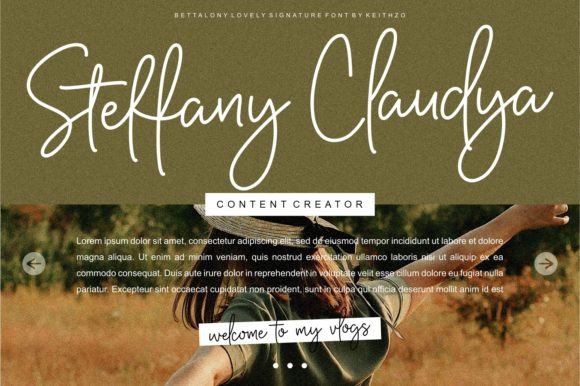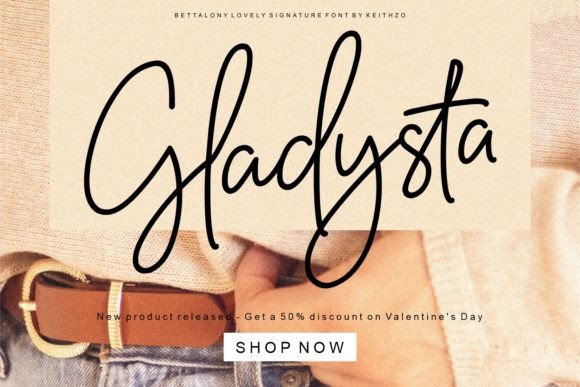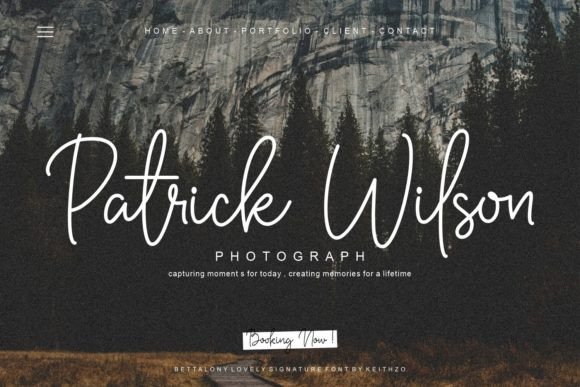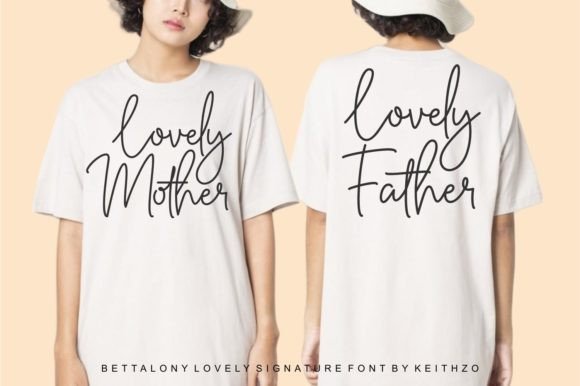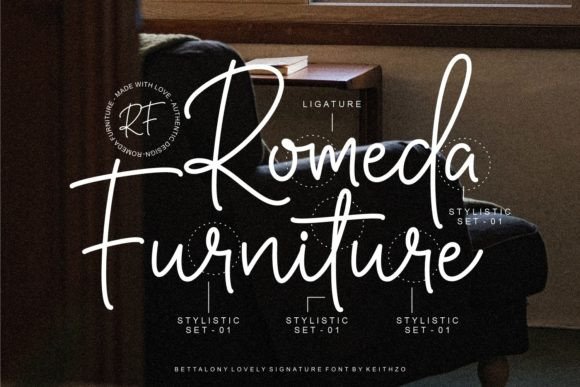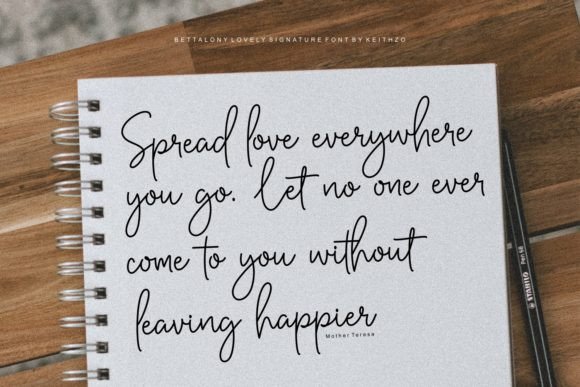
The Elegance of Bettalony Font: Elevate Your Designs with Sophistication
I’ll never forget the time I was working on a wedding invitation project, and my client asked for a font that exuded elegance and sophistication. I scoured the internet, tried out countless fonts, but nothing seemed to fit the bill. That was until I stumbled upon Bettalony Font. Its fluid lines and delicate curves instantly caught my attention, and I knew I had found the perfect fit. In this article, I’ll share with you why Bettalony Font is a game-changer for designers, crafters, and creative hobbyists alike.
A Personal Review: What I Love About Bettalony Font
Here’s what I love about Bettalony Font:
- ✨ Elegant and sophisticated design that’s perfect for wedding invitations, branding, and social media graphics
- ✅ PUA encoded, making it easy to access all glyphs and swashes
- 💫 Fluid lines and delicate curves that add a touch of luxury to any design
- 🎨 Highly versatile and can be used for a variety of projects, from digital to print
While Bettalony Font is an amazing font, there are a few small quirks to be aware of:
- ⚠️ Some users may find the font a bit too delicate for certain design applications
- 🤔 May require some experimentation to get the hang of using OpenType features and glyphs
The Story Behind Bettalony Font
Bettalony Font was designed by a talented type designer who’s passionate about creating beautiful, handwritten fonts. The font is inspired by the elegance of traditional calligraphy and the fluidity of modern handwriting. The designer aimed to create a font that’s both sophisticated and approachable, making it perfect for a wide range of design applications.
| Font Name | Bettalony Font |
| Author | Keithzo (7NTypes) |
Q: What is PUA encoding, and how does it benefit designers?
A: PUA (Private Use Area) encoding is a standard for encoding fonts that allows designers to access a wide range of glyphs and swashes. In the case of Bettalony Font, PUA encoding makes it easy to access all the glyphs and swashes, giving designers more creative freedom.
Q: Is Bettalony Font suitable for digital and print design?
A: Yes, Bettalony Font is highly versatile and can be used for both digital and print design. Its elegant design and fluid lines make it perfect for a wide range of applications, from social media graphics to wedding invitations.